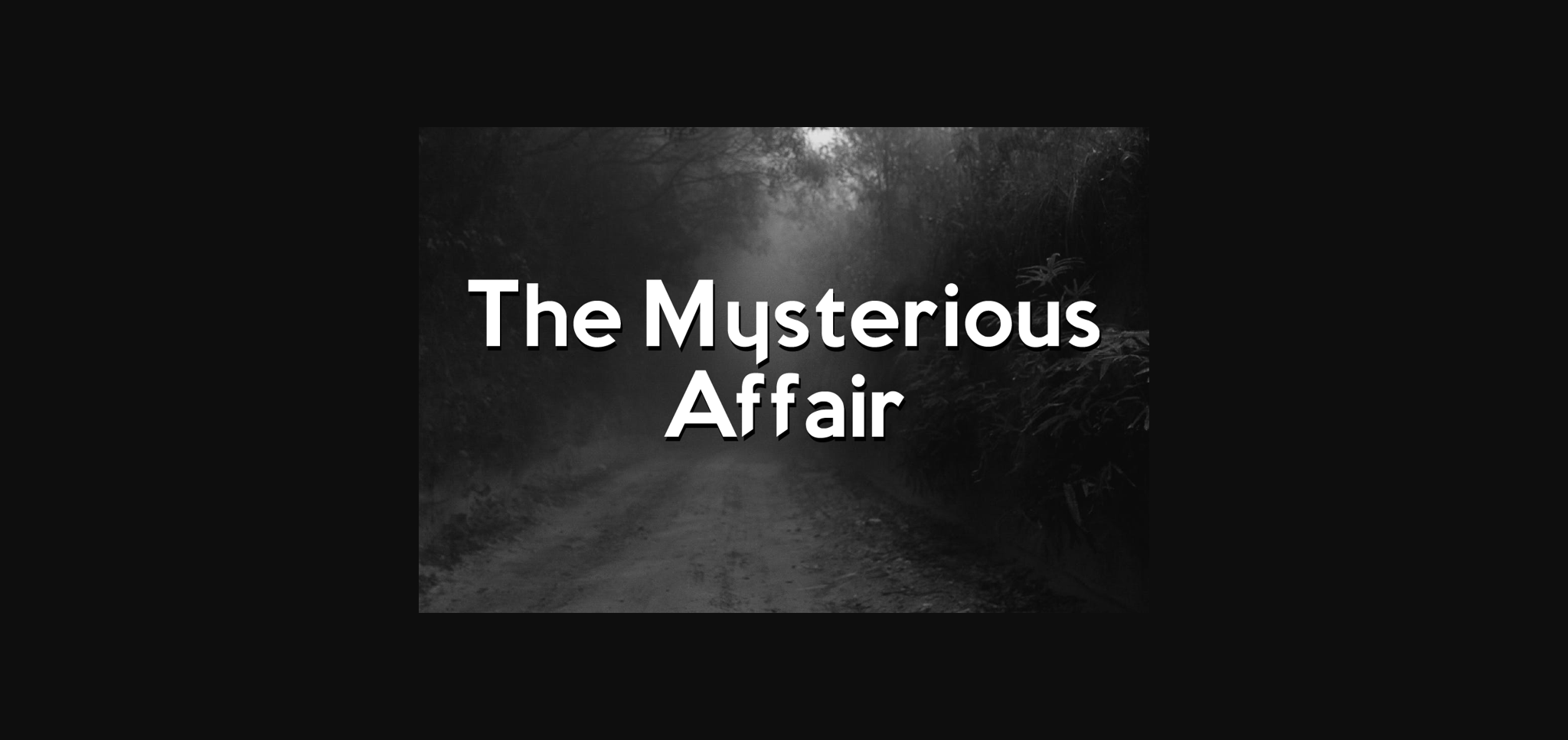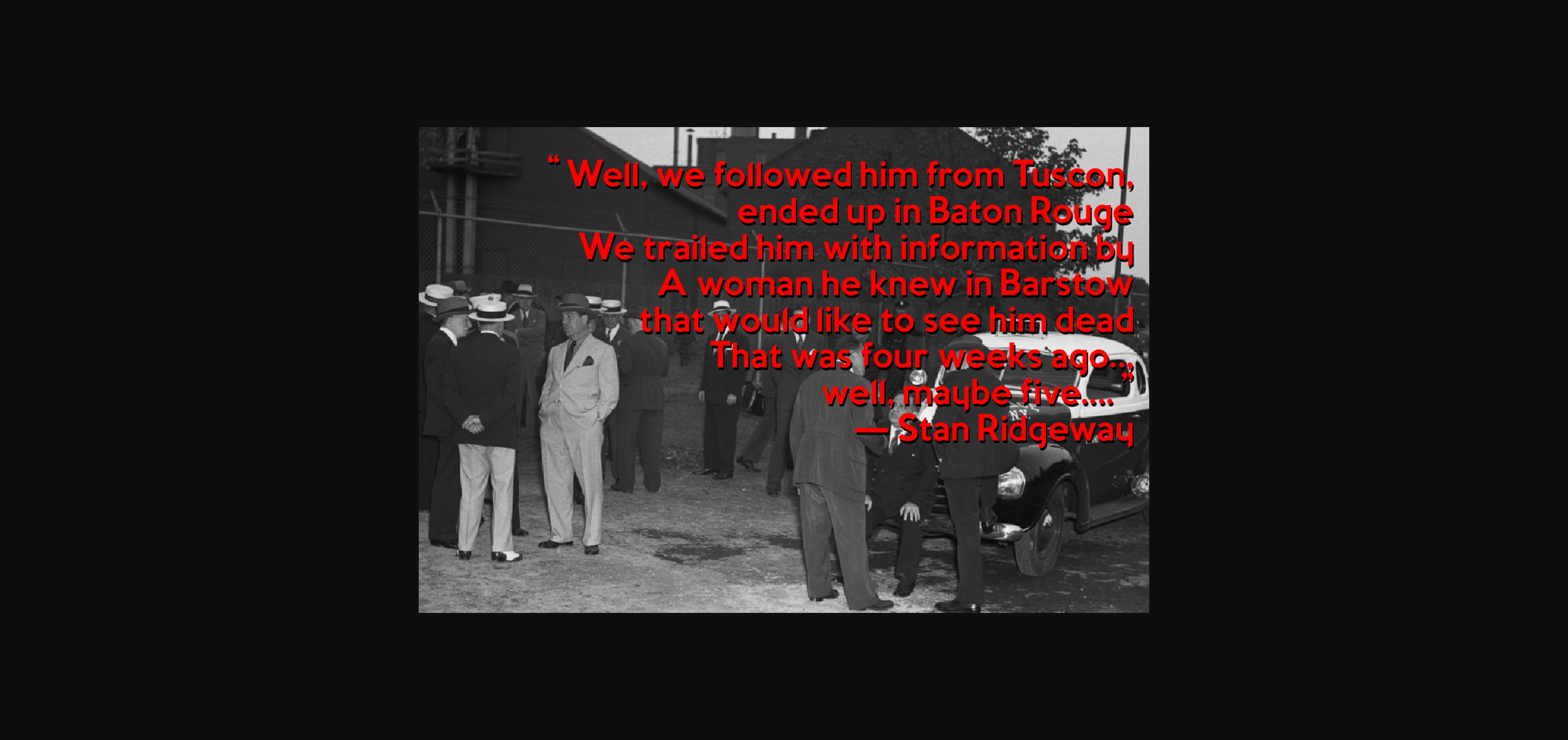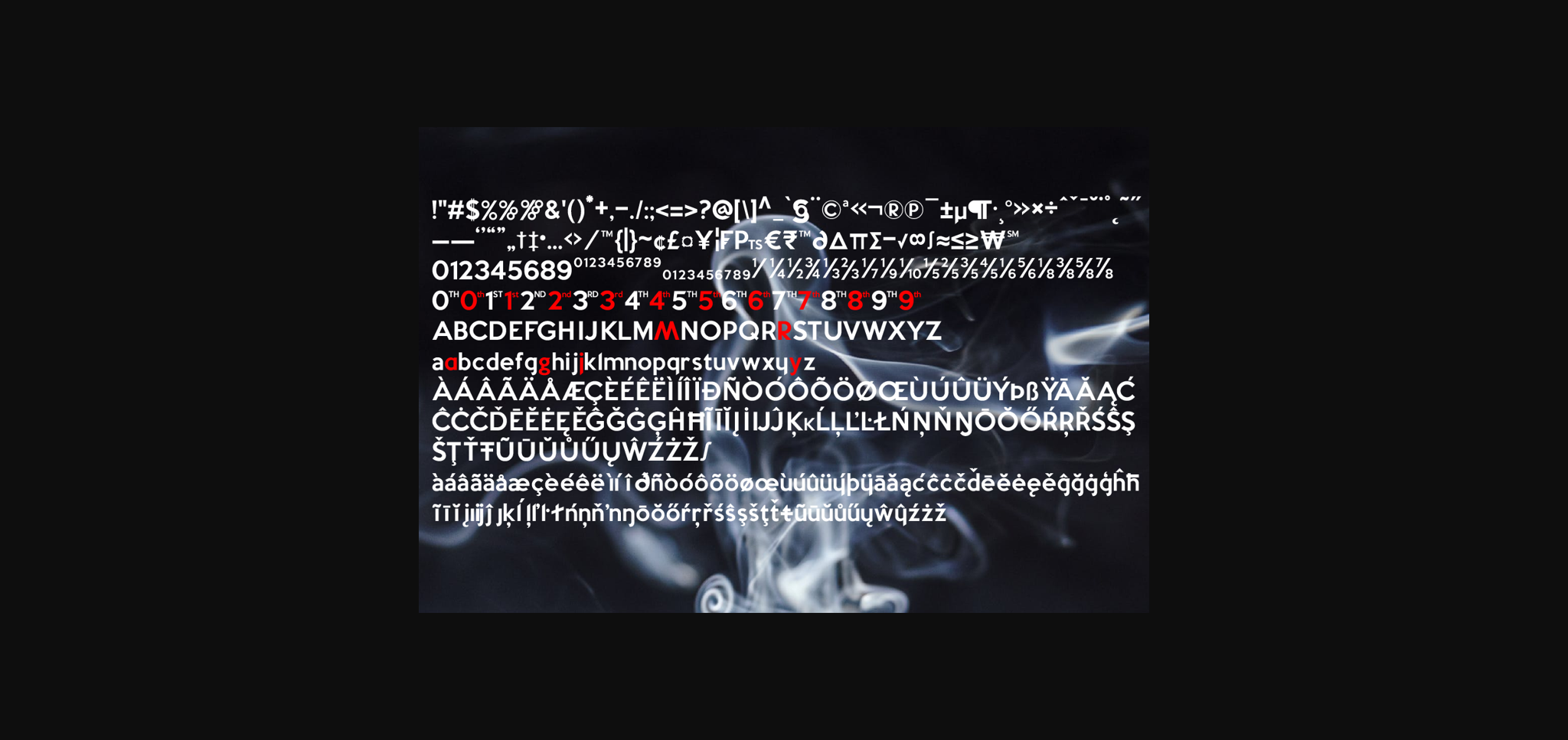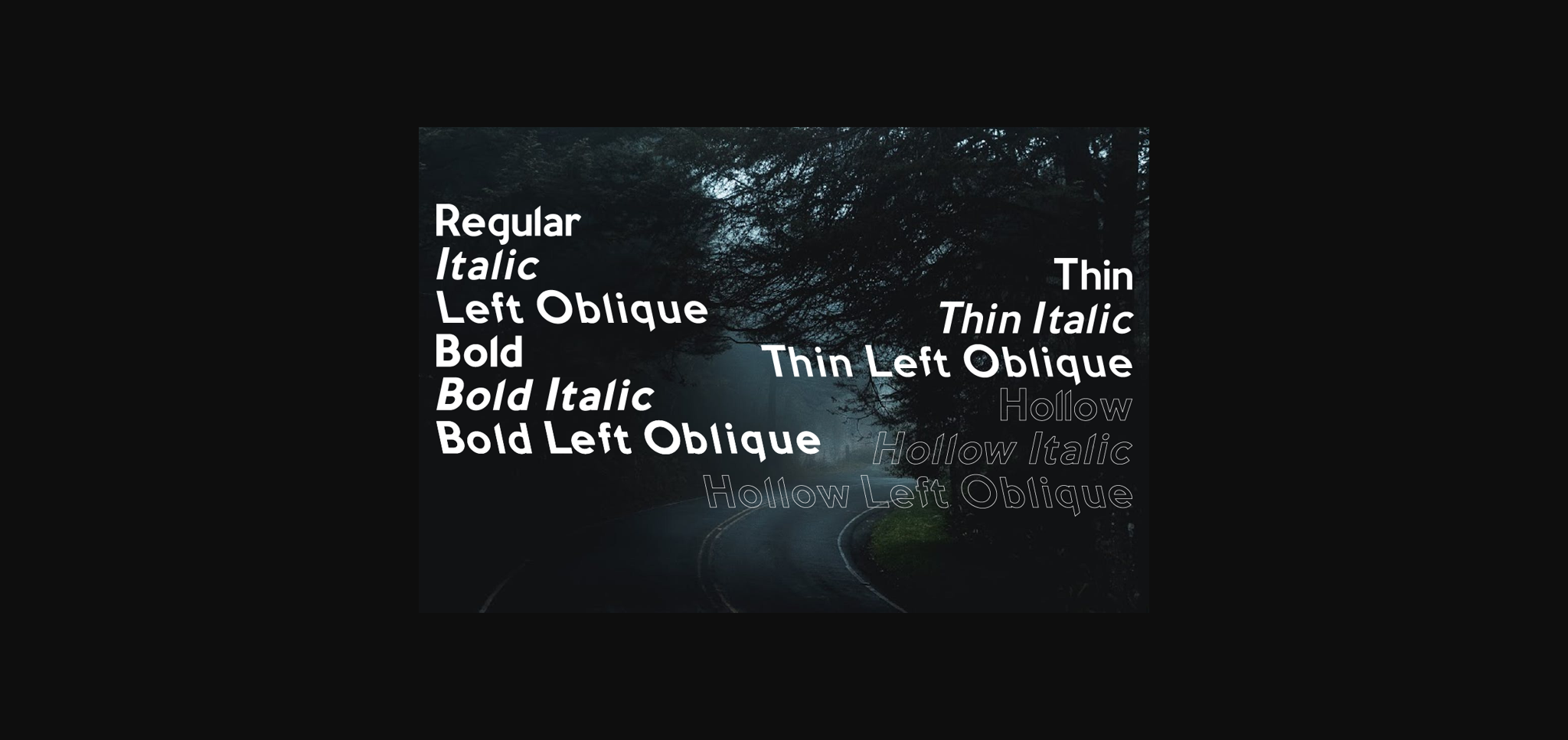
About The Mysterious Affair Family Font
The Mysterious Affair is a minimal and neat sans serif font. It can easily be matched to an incredibly large set of projects, so add it to your creative ideas and notice how it makes them stand out!